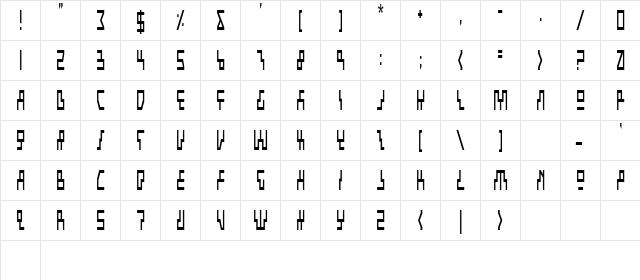
Beam Rider Condensed Condensed
Design Context for Beam Rider Condensed Typeface
Beam Rider Condensed is a composed and adaptable typeface that performs quietly and consistently across a wide range of design contexts. The condensed width makes it efficient for tight spaces without sacrificing legibility.